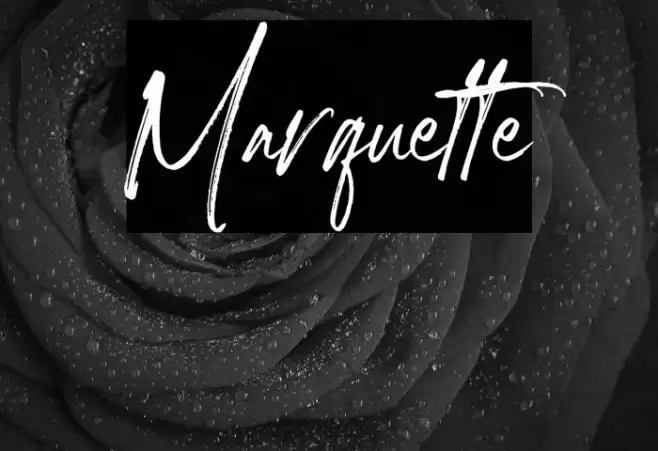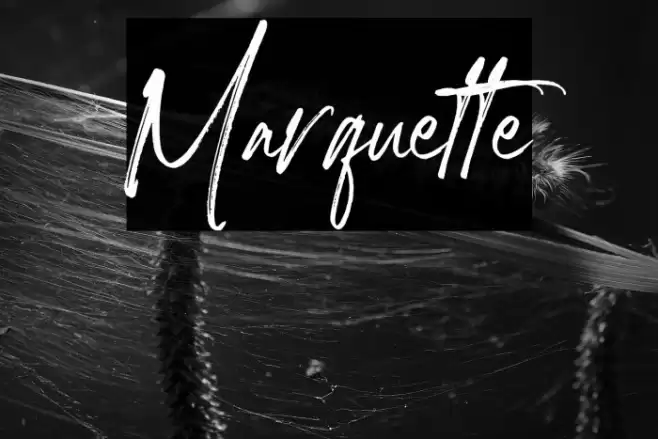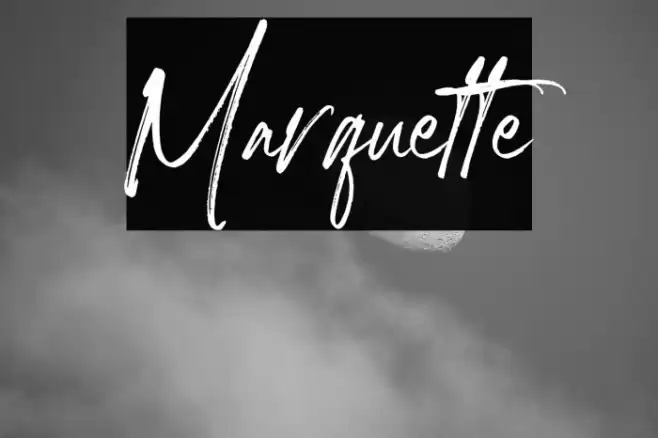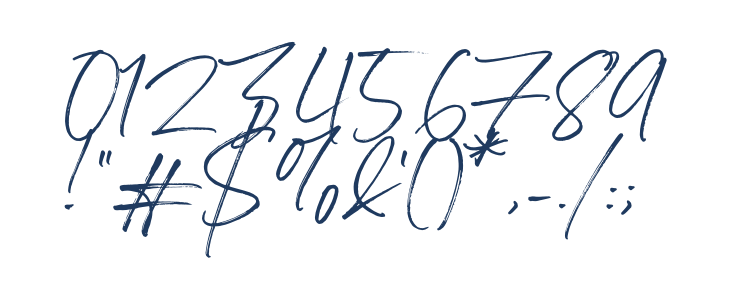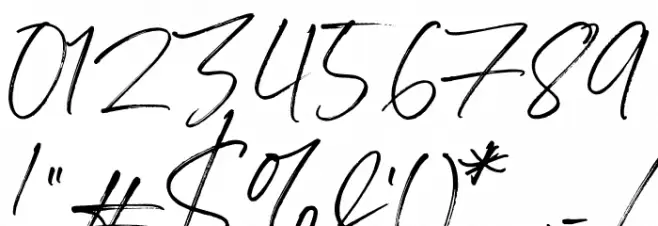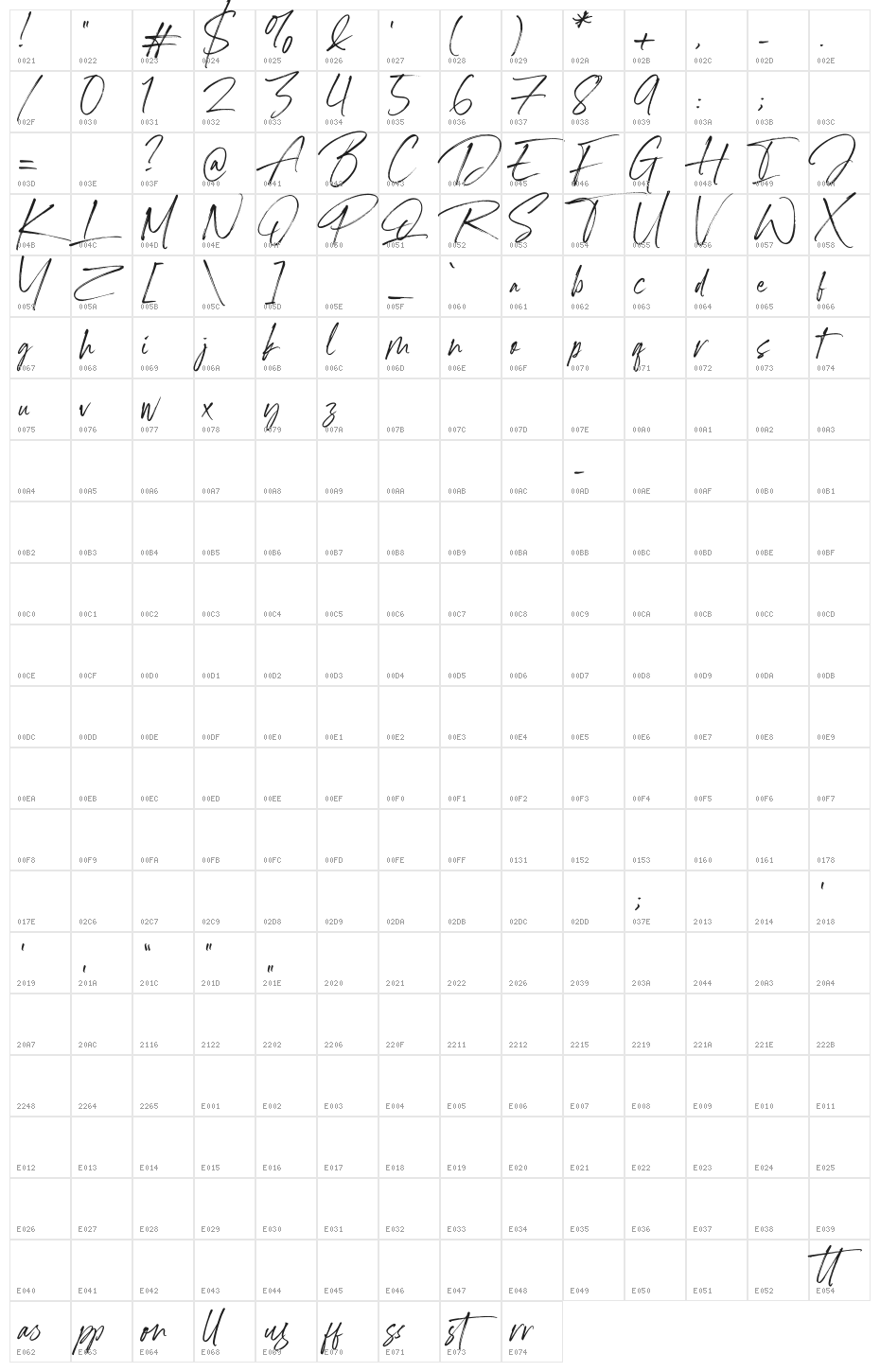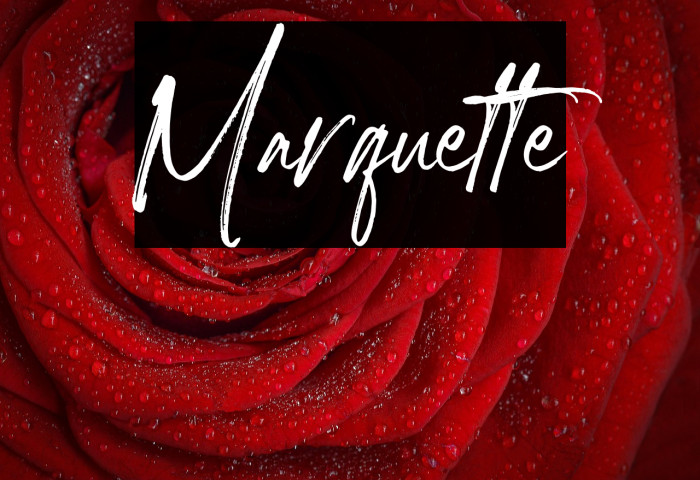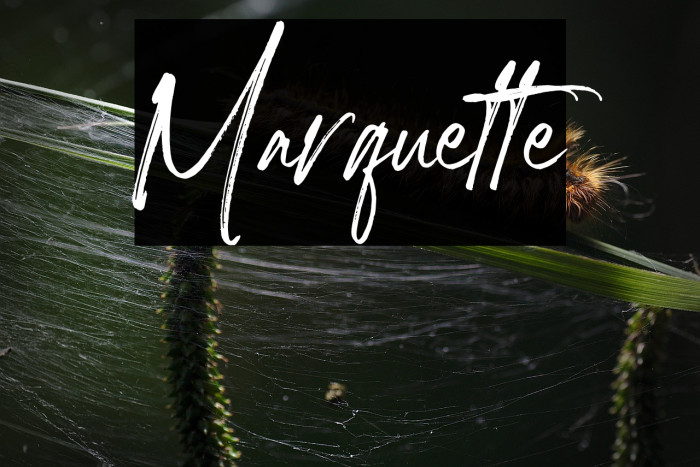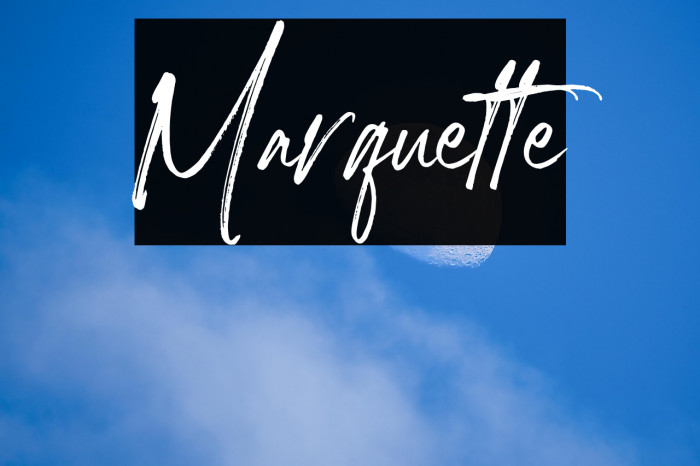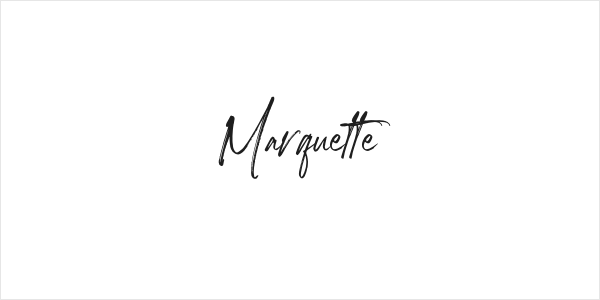
Marquette Font
Marquette Description
This font exudes a dynamic and expressive handwritten style, characterized by its fluid and energetic strokes. The letters are crafted with a natural flow, giving it an authentic and personal touch. The uppercase and lowercase letters maintain a consistent slant, enhancing the font's casual yet sophisticated appearance. The numerals and special characters are seamlessly integrated, maintaining the same lively and spontaneous feel. The overall design is versatile, making it suitable for creative projects that require a personal and artistic flair.
A dynamic and expressive handwritten font with fluid, energetic strokes from Regular fonts.
- Proposed Projects: Ideal for personal branding, creative invitations, artistic posters, and expressive social media graphics.
- Use Case: Logos, Headlines, Artistic projects